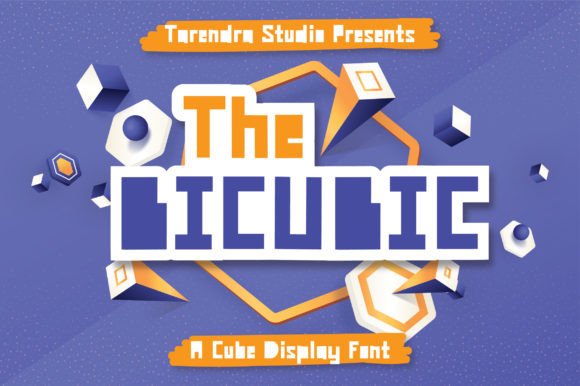
Embark on a typographic journey with The Bicubic Font, a display font family that's as modern as a sleek, futuristic cityscape and as captivating as a vintage arcade game. Its unique boxy and bold shapes evoke a sense of nostalgia and charm, making it the perfect choice for designers seeking to create designs with a distinct, eye-catching flair.
Immerse yourself in a world of creative possibilities with The Bicubic Font. Its versatility knows no bounds, seamlessly adapting to a myriad of themes, from the sleek and sophisticated aesthetics of blockchain technology to the playful and vibrant energy of the 90s. Unleash your imagination and let The Bicubic Font elevate your designs to new heights.
With its striking square shapes and bold presence, The Bicubic Font commands attention on any display, whether it's a captivating website banner, an informative poster, or a stylish social media post. Its unique characteristics lend themselves perfectly to headlines, titles, and short texts, ensuring your message cuts through the noise and leaves a lasting impression.
The Bicubic Font's crisp lines and sharp angles exude a sense of confidence and authority, making it an ideal choice for branding and marketing materials. Create logos, business cards, and brochures that radiate professionalism and leave a lasting impact on your audience.
In the realm of digital design, The Bicubic Font shines as a beacon of creativity. Its distinct style adds a touch of whimsy and playfulness to website designs, app interfaces, and social media graphics. Capture the attention of your audience and leave them wanting more with The Bicubic Font's captivating charm.